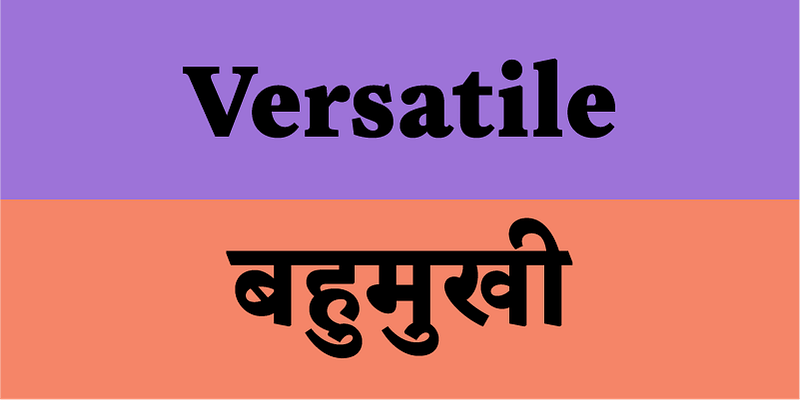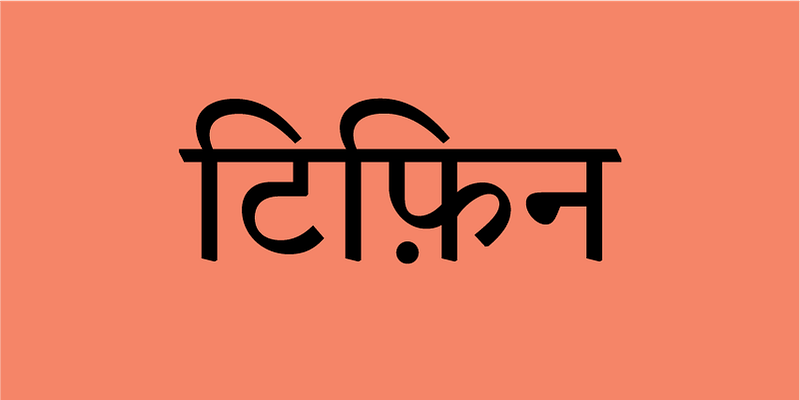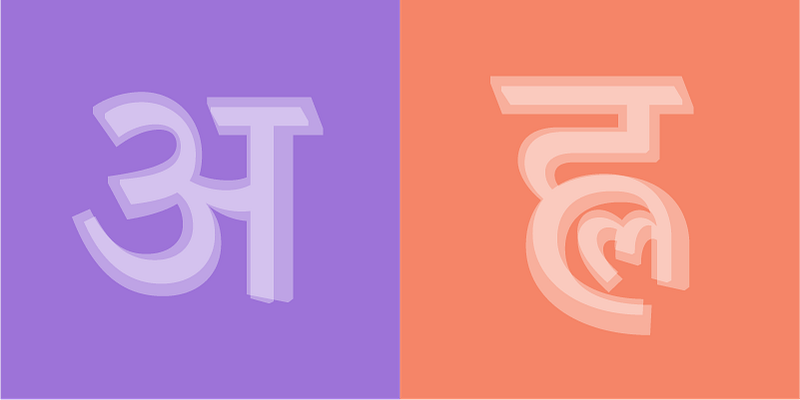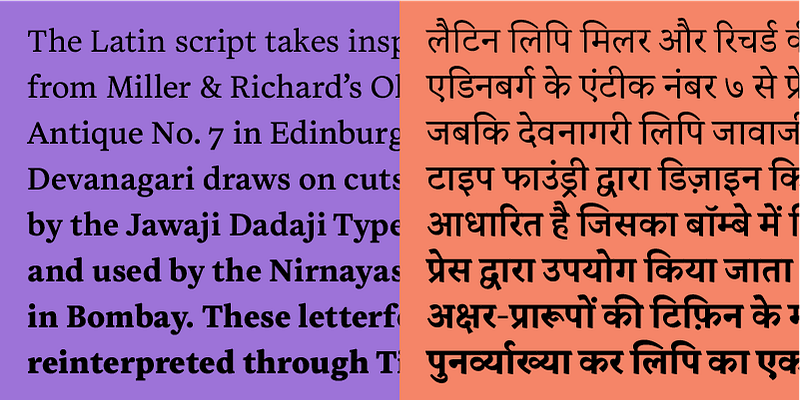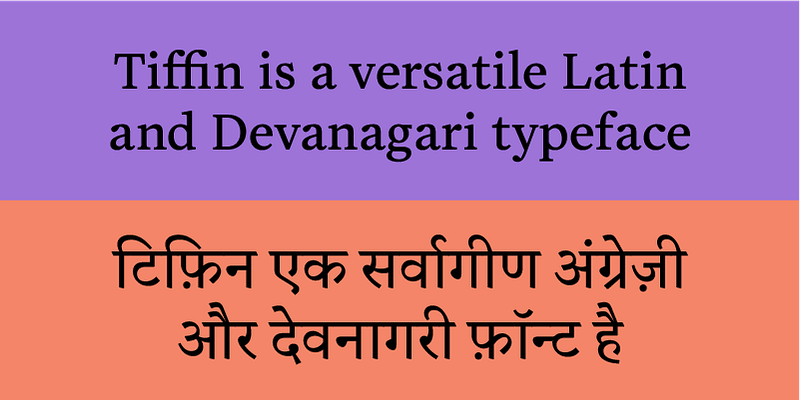
Tiffin is a versatile Latin and Devanagari typeface that can be used to set the scripts individually or together. It has a classic feel, thanks to its ties with modern old style cuts designed in Scotland and India in the late 19th century and early 20th century.
The Latin script takes inspiration from Miller & Richard’s Old Style, Antique No. 7 in Edinburgh, while the Devanagari draws on cuts designed by the Jawaji Dadaji Type Foundry and used by the Nirnayasagar Press in Bombay. These letterforms are reinterpreted through Tiffin to form a robust framework that keeps things strictly contemporary. Tiffin’s precise, careful design allows the two scripts to work seamlessly together while staying true to their construction.
There’s a thoughtfulness and sincerity to Tiffin but it comes with an underlying sense of playfulness, allowing it to flex across different themes, genres and formats. Use it to typeset a Nobel Prize-winning novel, or draft a manifesto for a utopian future.